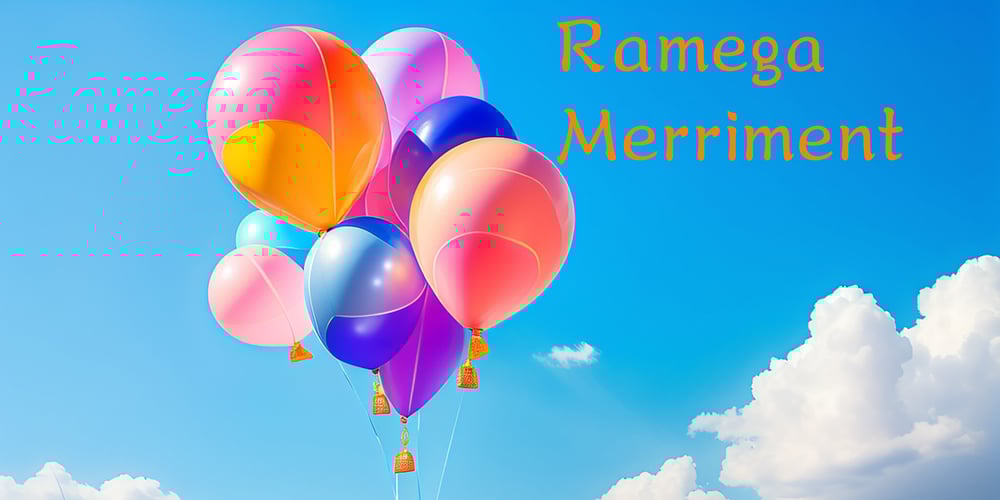
Ramega Merriment Font Family was designed by Apollo Zhang and published by Ramega. Ramega Merriment contains 1 styles and family package options. Introducing “Ramega Merriment,” an innovative and exciting new English typeface. Drawing from the aesthetics of soft brush strokes, it is a joy to behold and even more delightful to employ in a spectrum of creative contexts.The foundation of this font lies in its characteristic contours that mimic the flow and grace of brush writing. The artistry of this style is carried into every stroke, lending the font a dynamic and fluid appeal. The letters are designed with ample weight, giving them a rich, textural feel that adds a unique depth to the reading experience. “Ramega Merriment” truly shines in its ability to convey a sense of effortless joy and playfulness, inviting viewers into a world of light-hearted insouciance.One of the defining features of the “Ramega Merriment” is its richness in detail. Each glyph is a careful study in balance and aesthetics, filled with intricate minutiae that make the font as much an artistic endeavour as a functional one. The elements of design are not just about form, but also about evoking specific emotions, creating a sense of connection with the audience on a deeper level.”Ramega Merriment” is more than just a typeface. It’s a tropical breeze on a summer day, a carefree laughter carried by the wind, a flurry of confetti in air. Whether it’s used in an elegant invitation, a joyful event poster, or a heartfelt message, it brings a delightful burst of merriment to any design it graces.In sum, “Ramega Merriment” embodies a rollercoaster of joy and excitement through its soft strokes, full lines, and rich detail. Whether you’re looking to add some cheerfulness to your work or create an inviting, celebratory vibe, “Ramega Merriment” is the typeface for you. Its jovial charm is sure to bring a smile to anyone who encounters it.